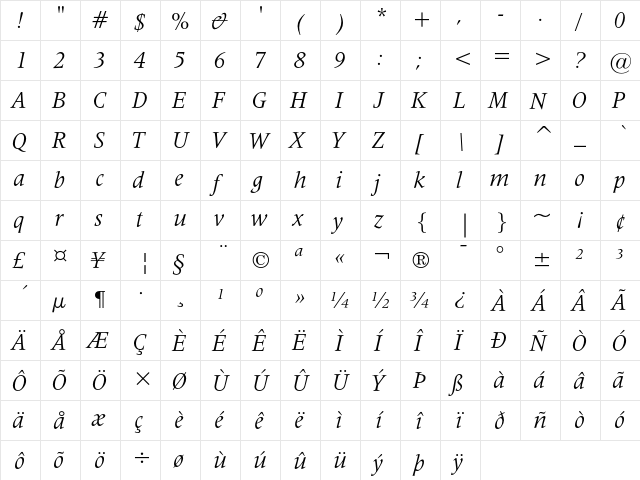
Latin 725 Italic
Design Context for Latin 725 Typeface
Latin 725 takes a measured approach to typography — its balanced proportions and neutral character make it a reliable workhorse for both digital and print work. The slanted form adds forward momentum and visual energy.